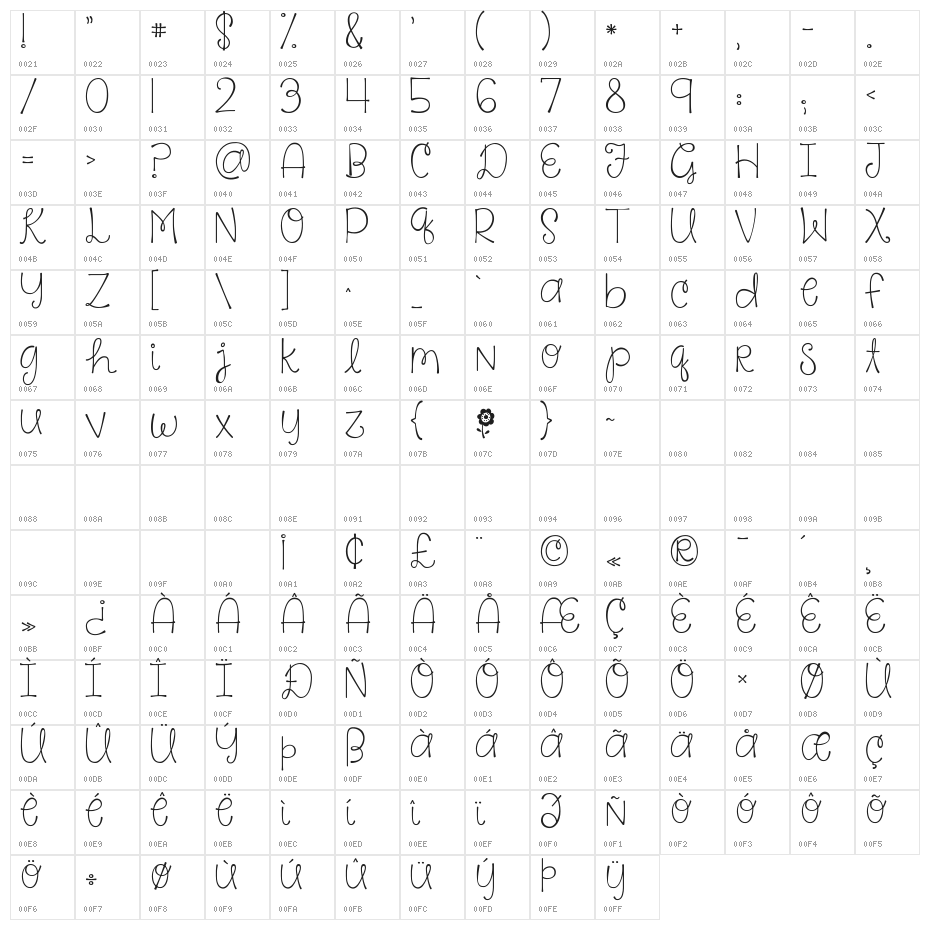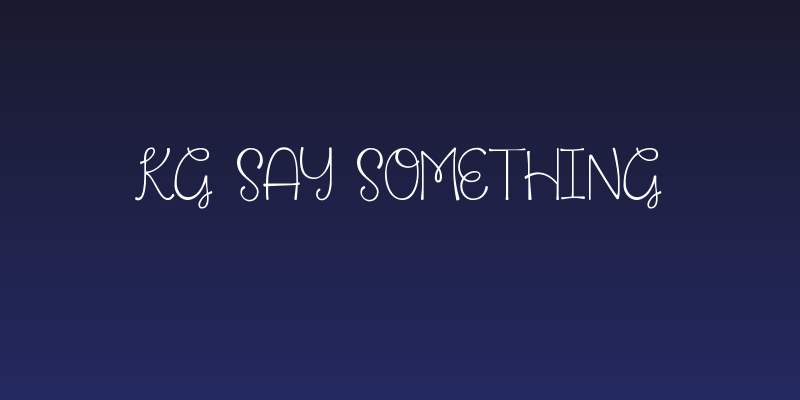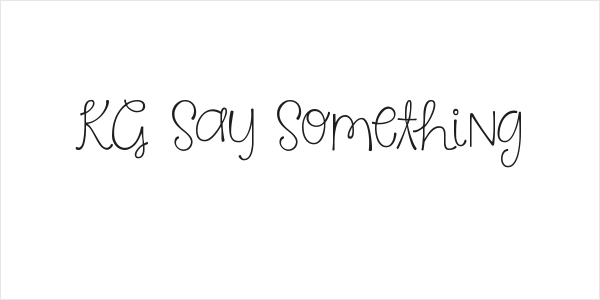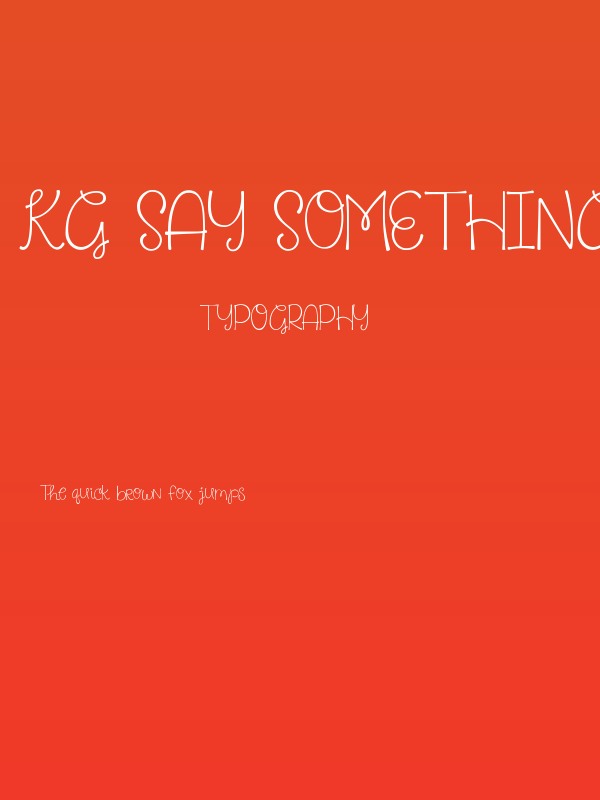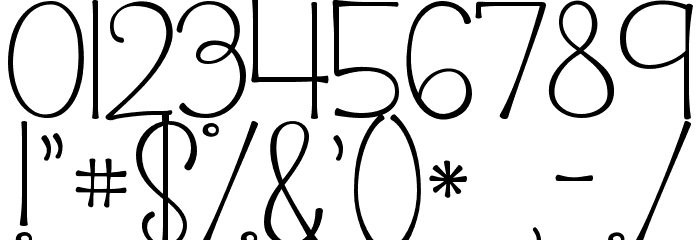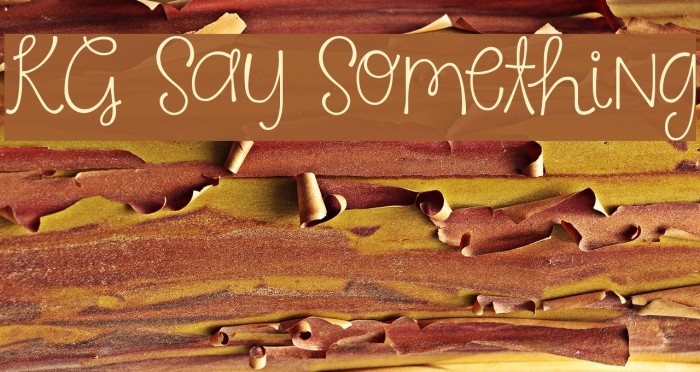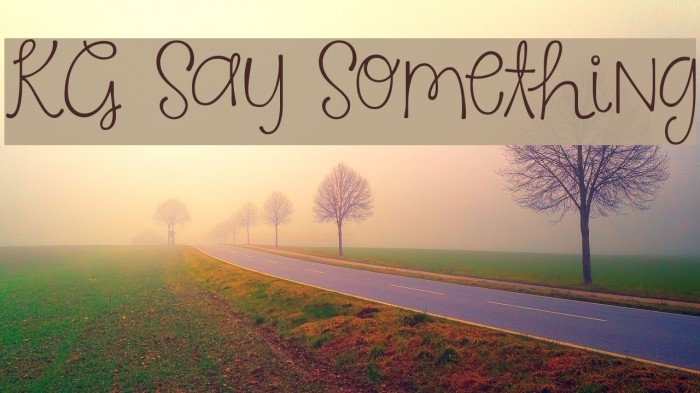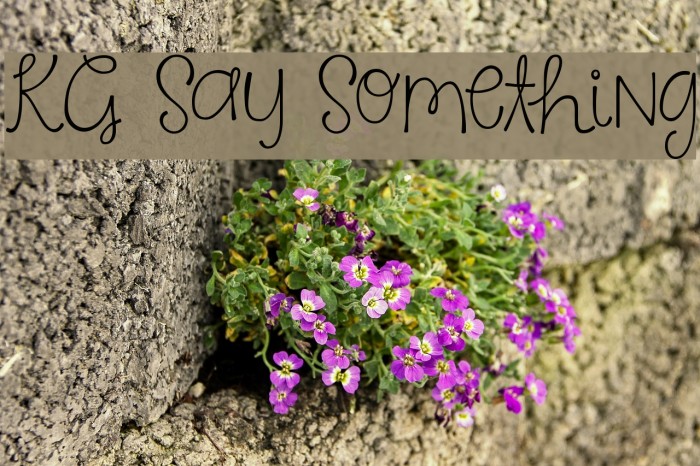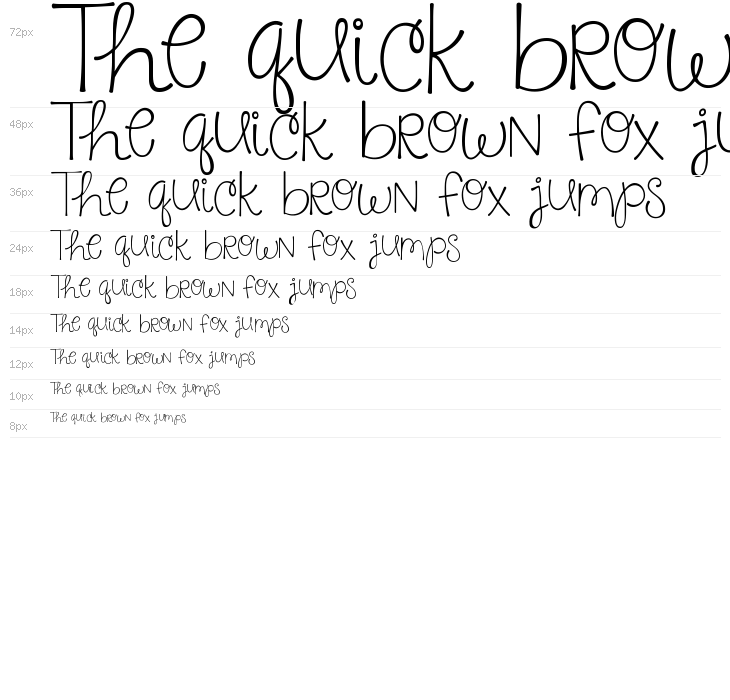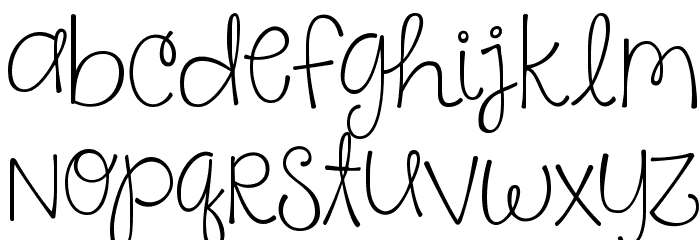
KG Say Something Font
KG Say Something Description
This font features a playful and whimsical design, characterized by its flowing, cursive-like strokes that give it a handwritten feel. The letters are tall and slender, with a consistent stroke width that maintains readability while adding a touch of elegance. The uppercase letters exhibit a unique blend of straight lines and curves, while the lowercase letters are more rounded and fluid. The numerals are bold and clear, ensuring they stand out. Special characters are creatively integrated, maintaining the font's overall playful aesthetic.